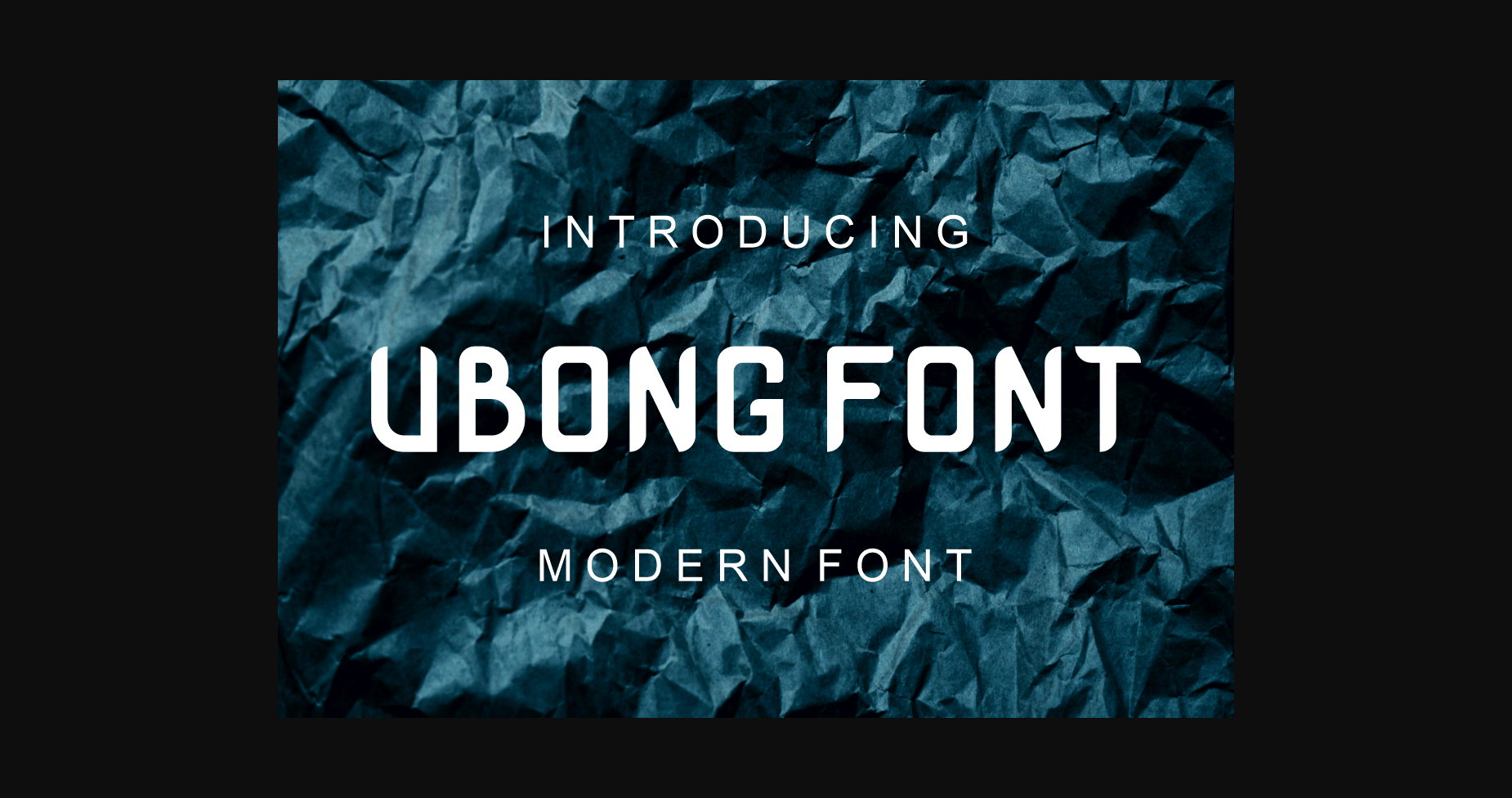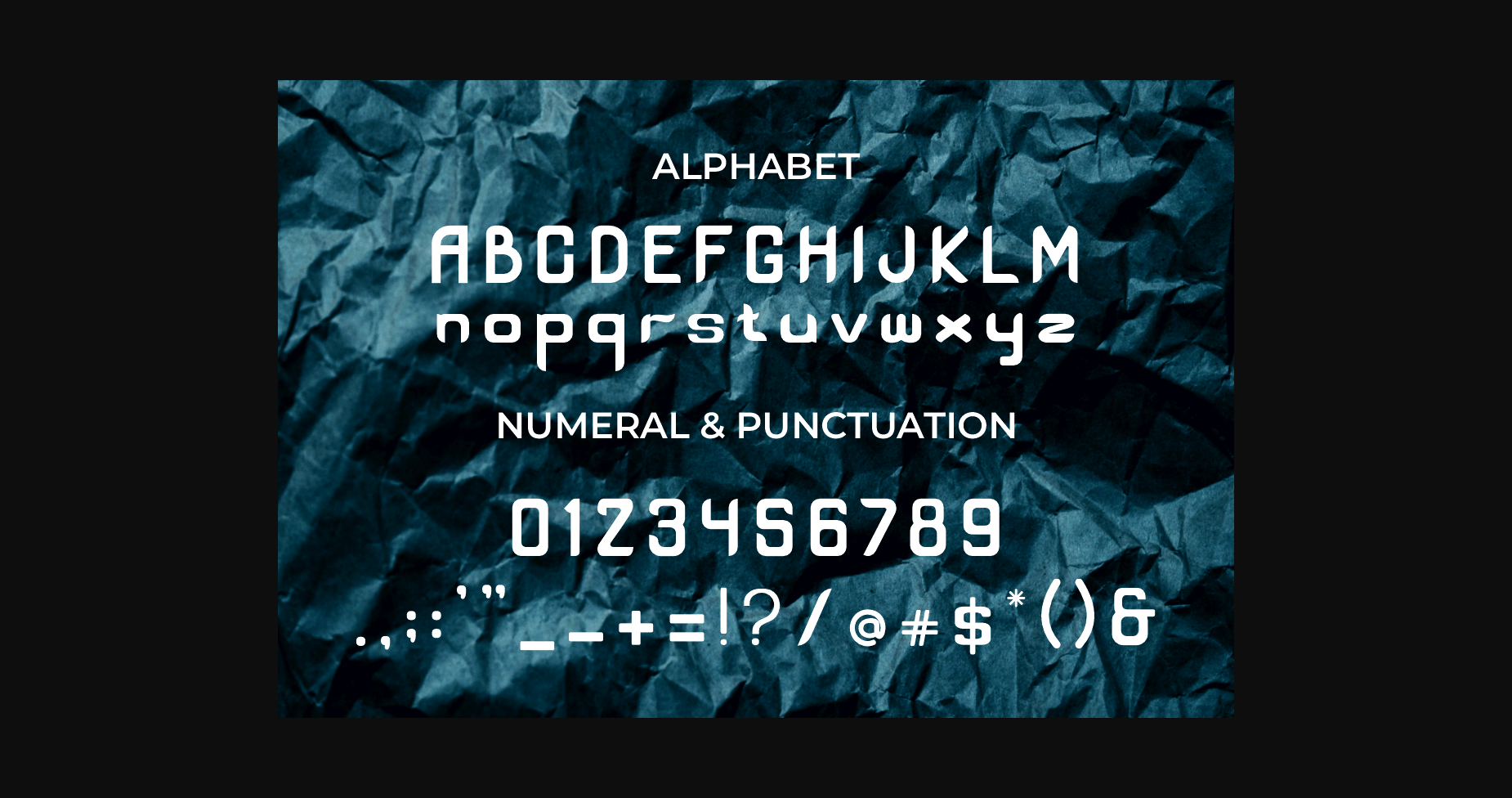
HomeSans Serif FontsUbong Font Sans Serif Fonts Ubong Font FacebookXPinterestWhatsApp 1 of 4 ... Ubong Font Poster 2... Ubong Font Poster 3... Ubong Font Poster 4... About Ubong Font Ubong is a cool and modern display font. Whatever the topic, this font will be a wonderful asset to your font library, as it has the potential to enhance any creation. DOWNLOAD NOW People also explored Creative Font Mikky Font Antrophys Script Font Handmade Font Gingerstraw Font Mint Bella Canvas 3001 Funky Tee Mockup Valentine Chocolate – Beauty Calligraphy Font Hecate Font Milan in Paris Font 268 0 TagsUbongUbong Font Previous articleSpeed Up FontNext articleIndent Font LEAVE A REPLY Cancel reply Comment: Please enter your comment! Name:* Please enter your name here Email:* You have entered an incorrect email address! Please enter your email address here Website: Save my name, email, and website in this browser for the next time I comment. Personal Use Free Nuku Nuku Personal Use Free Read more about this font Trio Personal Use Free Read more about this font Sweet Beautiful Personal Use Free Read more about this font Choco Shake Font Personal Use Free Read more about this font BLOG Free vs Paid Fonts: Why Investing in Premium Fonts Is Worth It Free vs Paid Fonts: Why Premium Fonts Are Worth It in 2025 The debate of free vs paid fonts continues in the design world. While... Modern Sans-Serif Fonts That Brands Love in 2025 How to Cut Any Font on Cricut: Convert a Font to SVG (Free) Transform Your Website: Elevate Your Typography with 7 Best Web Font Generators